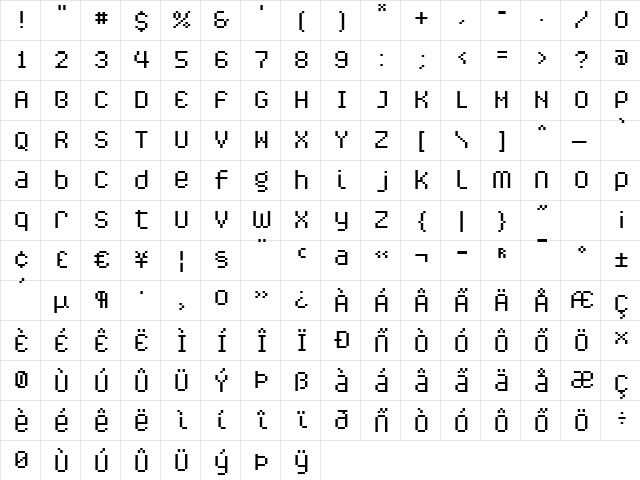
Caliper Alternate
| Foundry | YouWorkForThem |
| Designer | Michael Cina |
Design Context for Caliper Typeface
Caliper offers clean, dependable letterforms without strong stylistic allegiance, making it a practical choice for designers who need flexibility.